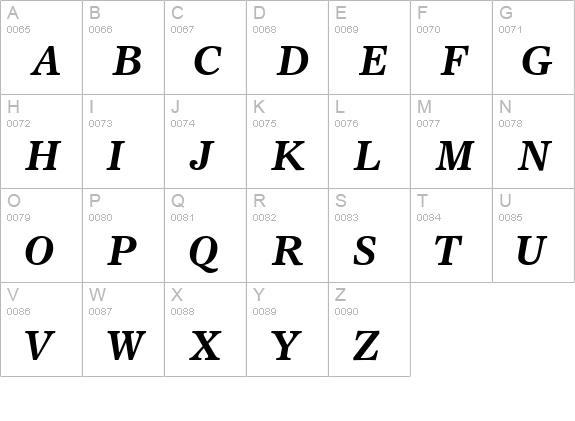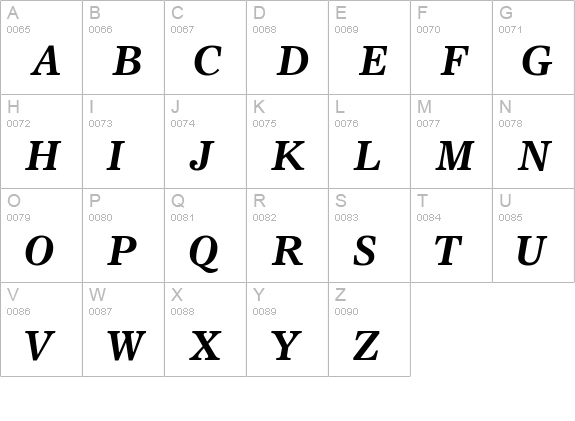
Sterling SSi Bold Italic Font Details
Sterling SSi Bold Italic is a strong, high-contrast, italic variant in the Sterling typeface family \xE2\x80\x94 well suited to headlines, attention-grabbing titles, and strong calls-to-action.
Sterling SSi Bold Italic font is a bold and dynamic typeface with a touch of elegance and sophistication. Its strong and slanted characters exude confidence and style, making it perfect for headings, titles, and other attention-grabbing text. The sleek curves and sharp angles of this font give it a modern and contemporary feel, while the italicized style adds a sense of movement and flair. The best part about Sterling SSi Bold Italic font is that it is available for free download at FontsMarket.com. Whether you're a designer looking to add a bold statement to your project or someone in need of a stylish font for personal use, Sterling SSi Bold Italic font is the perfect choice. Download it today and elevate your designs with this striking and versatile typeface.